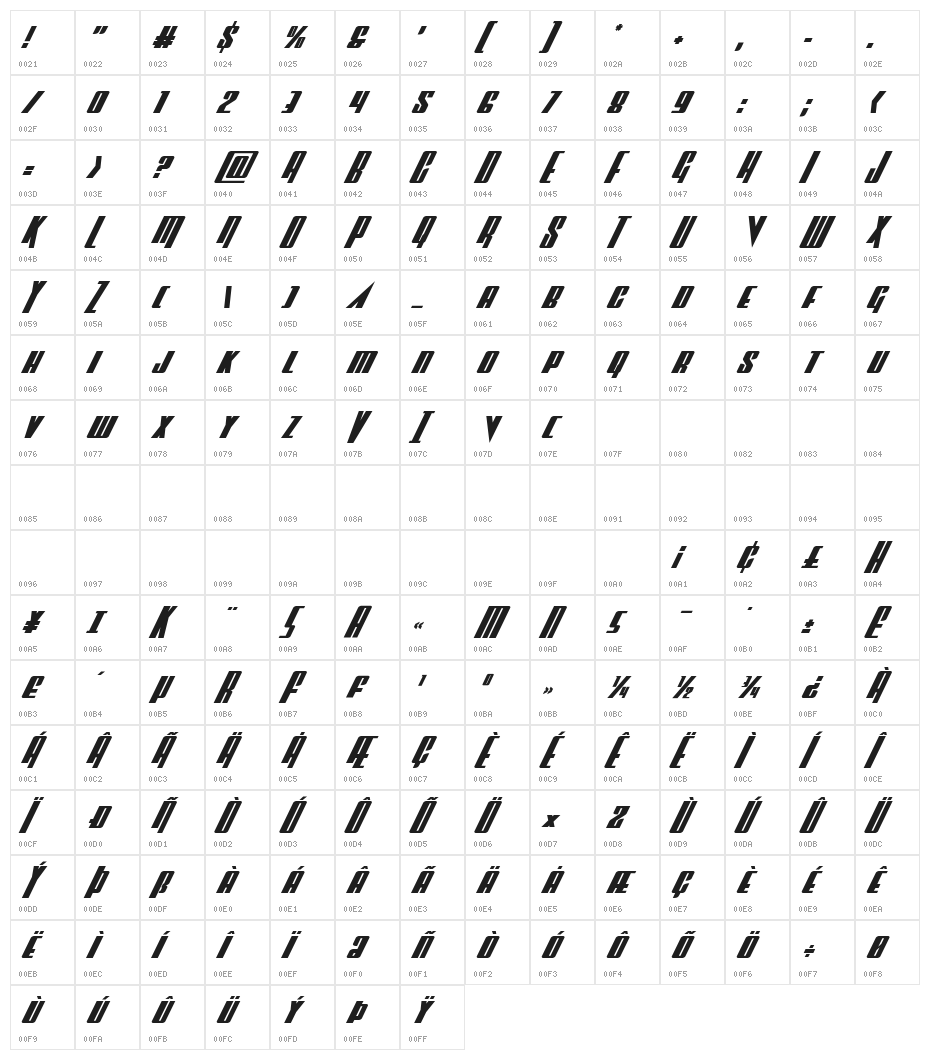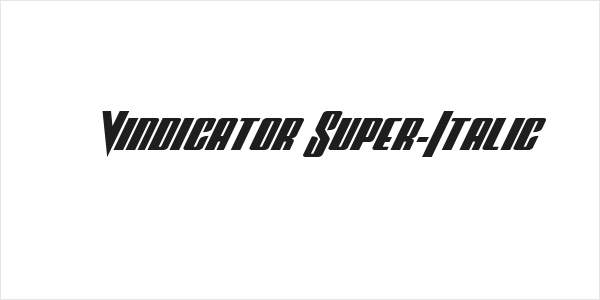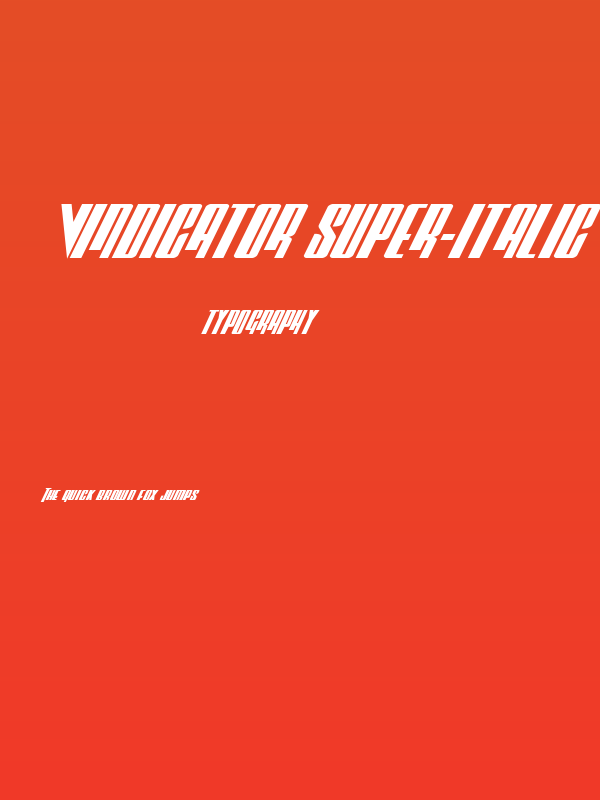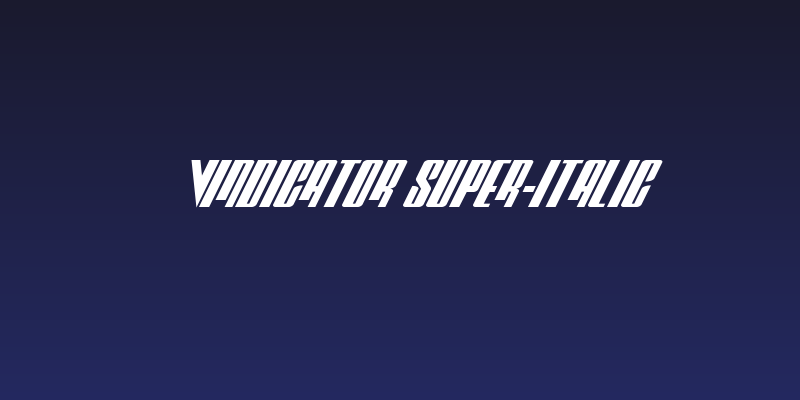
Vindicator Super-Italic Font
Vindicator Super-Italic Description
This font features a bold and dynamic design with a strong italic slant, giving it a sense of motion and energy. The characters are tightly spaced, enhancing its compact and impactful appearance. The strokes are thick and consistent, providing a high contrast that makes each letter stand out prominently. The overall style is modern and aggressive, suitable for making a bold statement. The uppercase and lowercase letters maintain a uniform style, while the numerals and special characters are designed to match the font's energetic aesthetic.
| Proposed Projects | Ideal for sports branding, action movie posters, and dynamic advertising campaigns. |